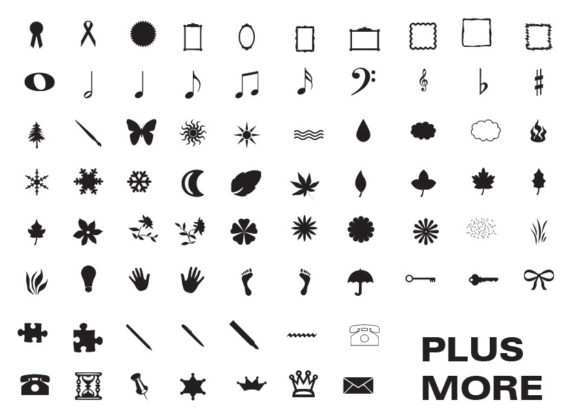
Unlock Creative Possibilities with Classic Photoshop Shapes Font
Are you a designer, crafter, or DIY enthusiast looking to elevate your creative projects? Look no further than the Classic Photoshop Shapes font, a versatile and fun dingbats font that can add a touch of personality to any design. In this article, we’ll explore the benefits and uses of Classic Photoshop Shapes, and why it’s a must-have addition to your font library.
What is Classic Photoshop Shapes?
Classic Photoshop Shapes is a unique dingbats font that features a wide range of shapes, icons, and graphics inspired by classic Photoshop elements. The font includes a vast collection of customizable shapes, from basic geometric forms to intricate designs and patterns. Whether you’re creating a logo, brochure, or social media graphic, this font has the potential to add a professional and polished touch to your work.
Why You Need Classic Photoshop Shapes in Your Font Library
No matter the topic or theme of your project, Classic Photoshop Shapes is an incredible asset to have in your font library. Here are just a few reasons why:
- Versatility: With Classic Photoshop Shapes, you can create a wide range of designs, from simple icons to complex graphics. The font’s versatility makes it perfect for various applications, including logos, brochures, posters, and more.
- Customization: The font’s shapes and icons are highly customizable, allowing you to tailor them to your specific design needs. You can resize, recolor, and combine shapes to create unique and personalized graphics.
- Time-Saving: With Classic Photoshop Shapes, you can save time and effort in your design process. The font’s extensive library of pre-made shapes and icons means you don’t have to spend hours creating them from scratch.
- Professional Results: The font’s high-quality shapes and icons are designed to produce professional-looking results. Whether you’re a seasoned designer or a DIY enthusiast, Classic Photoshop Shapes can help you achieve polished and sophisticated designs.
Who Can Benefit from Classic Photoshop Shapes?
Classic Photoshop Shapes is an excellent resource for a wide range of designers, crafters, and DIY enthusiasts, including:
- Graphic Designers: Professional graphic designers can use Classic Photoshop Shapes to add a creative touch to their designs, from logos and brochures to social media graphics and websites.
- Crafters: Crafters and makers can use the font to create custom graphics and designs for their handmade products, such as labels, packaging, and promotional materials.
- DIY Enthusiasts: DIY enthusiasts can use Classic Photoshop Shapes to create personalized graphics and designs for their home decor, scrapbooking, and other creative projects.
Classic Photoshop Shapes is a fun and useful dingbats font that can elevate any creative project. With its versatility, customization options, and professional results, it’s an excellent addition to any font library. Whether you’re a designer, crafter, or DIY enthusiast, Classic Photoshop Shapes is a must-have resource for taking your designs to the next level.